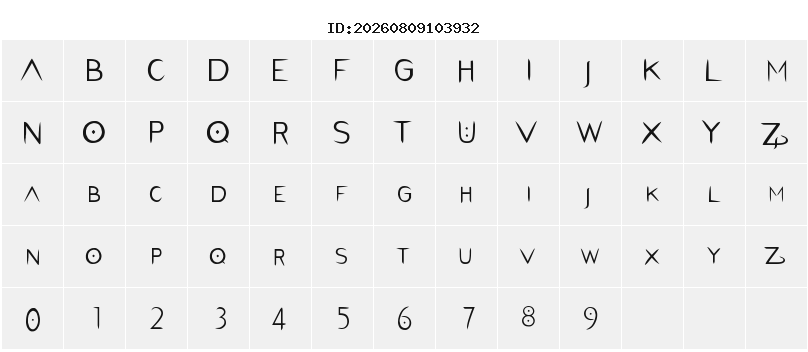
PentaGram’s Salemica Eximius Preview
About PentaGram’s Salemica Eximius.ttf
PentaGram’s Salemica Eximius.ttf is a modern, elegant sans-serif font designed for ultimate readability and visual harmony. Perfect for branding, headlines, web design, and print materials.